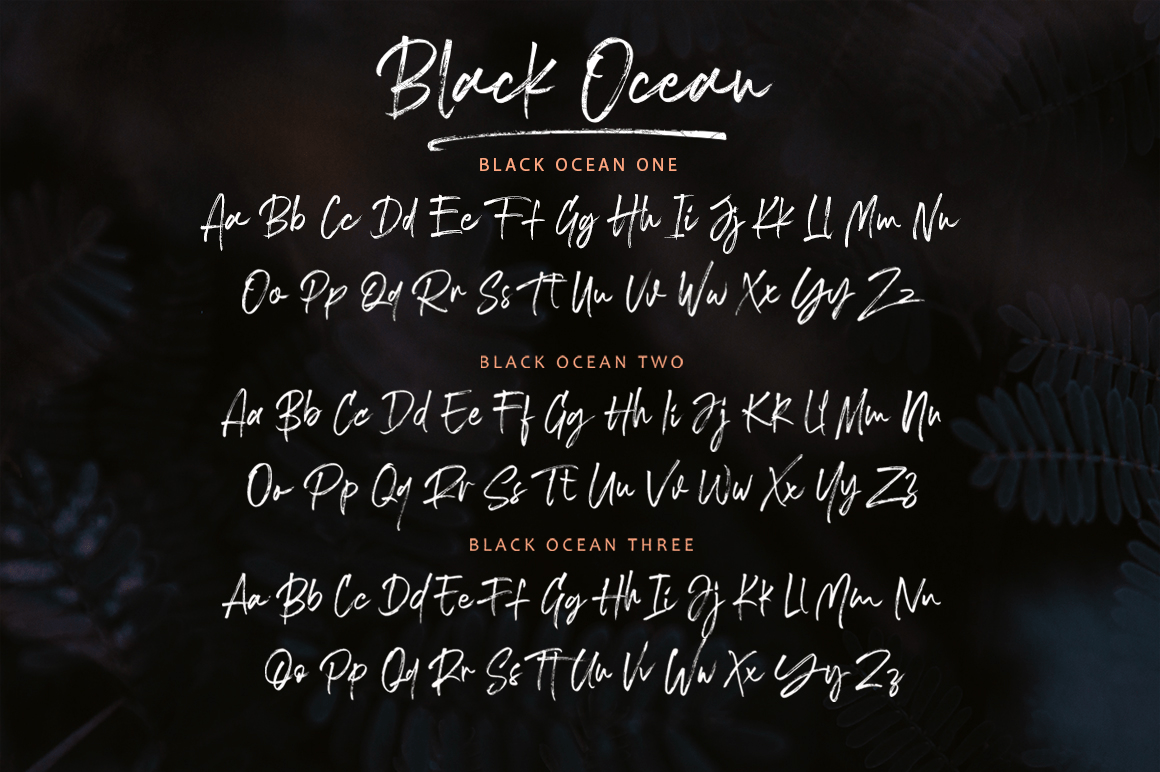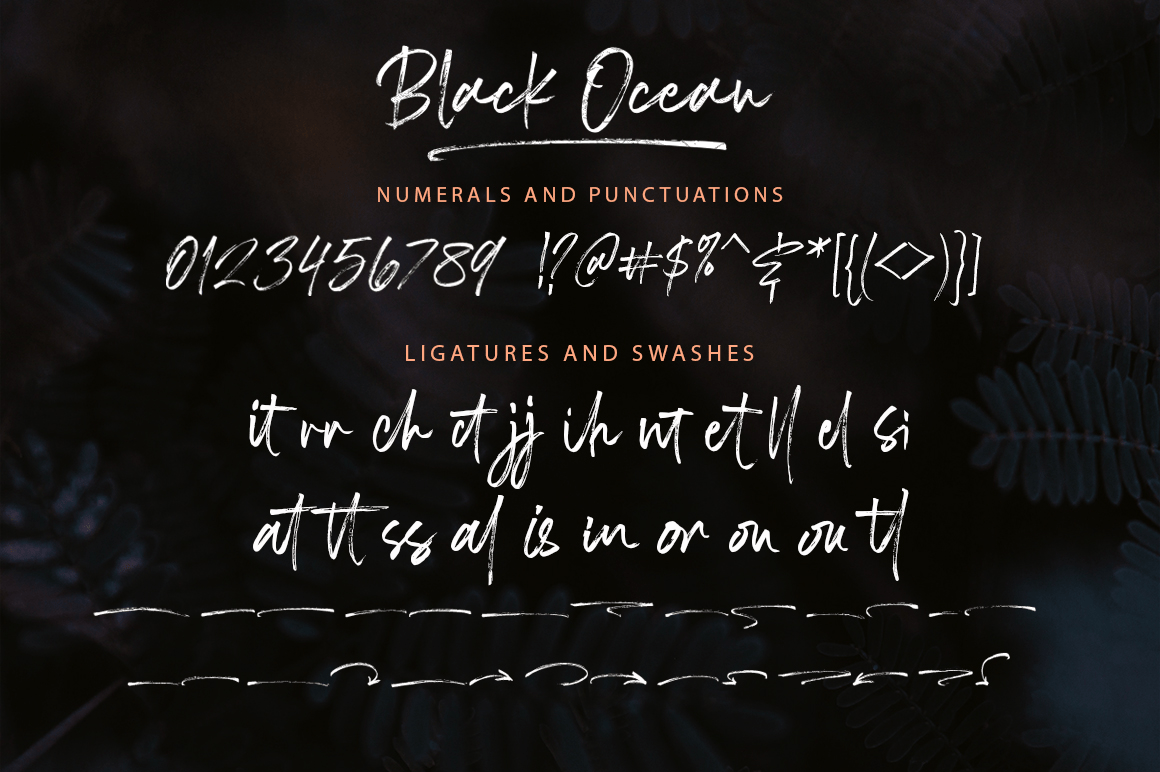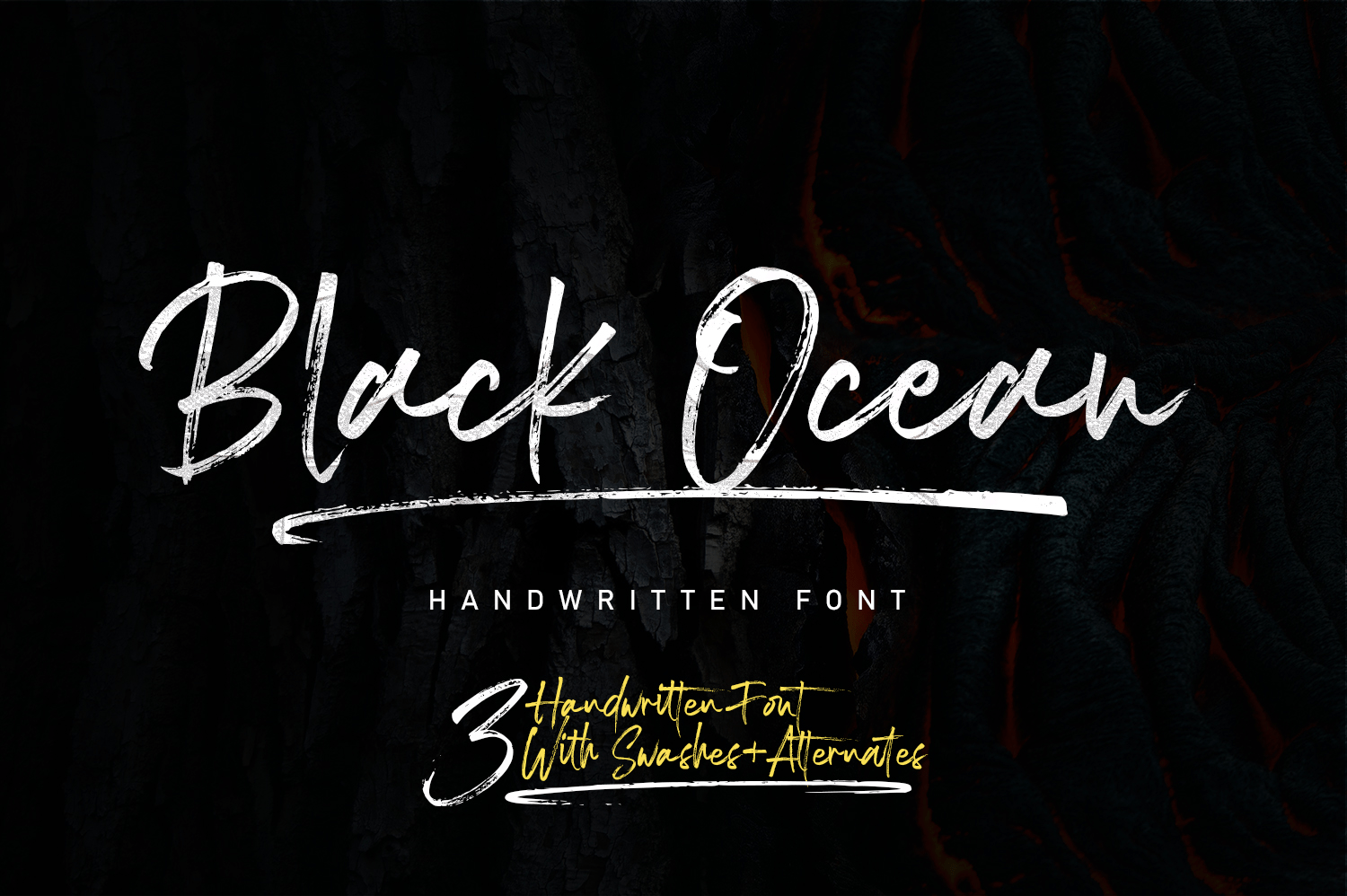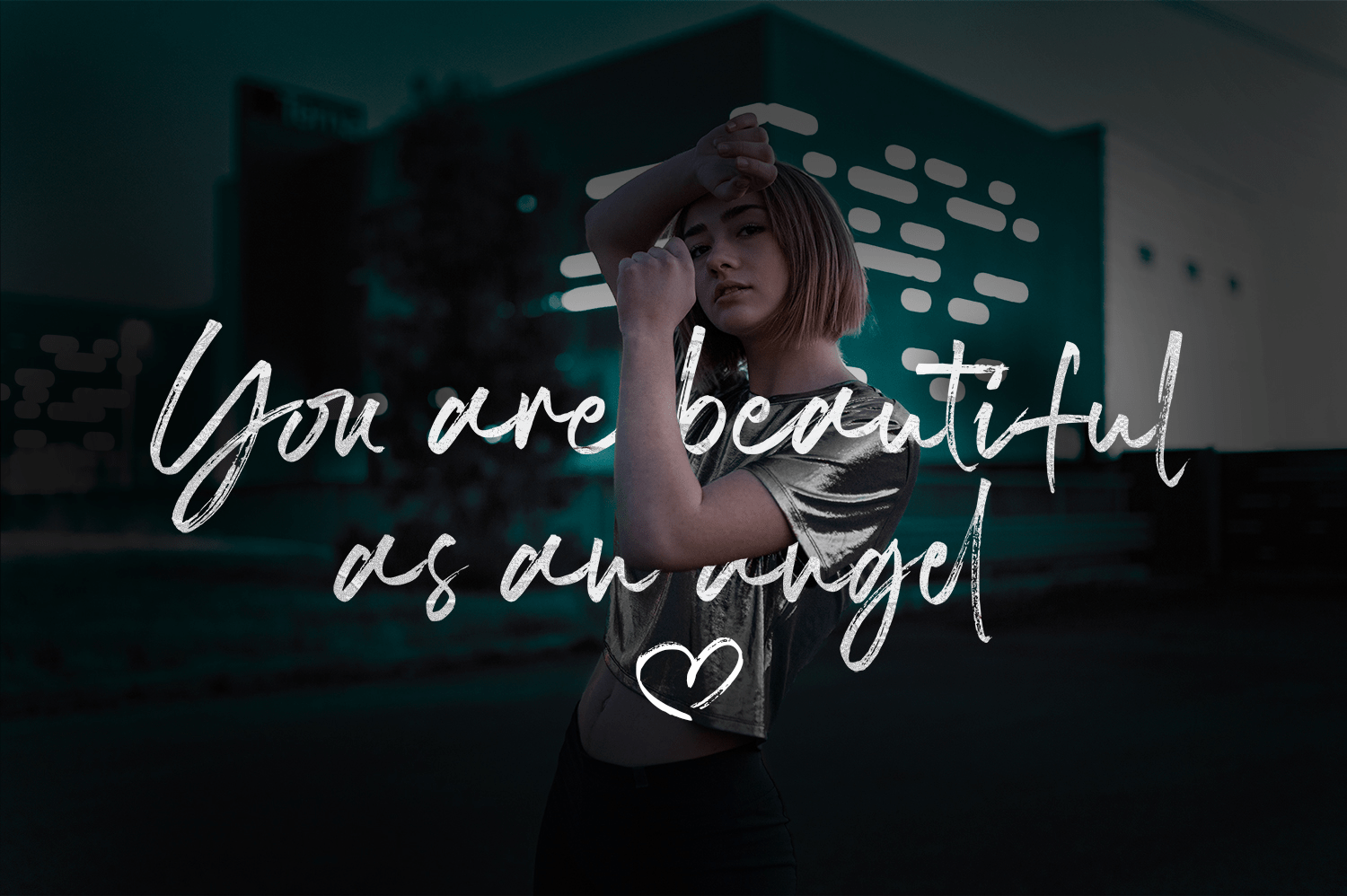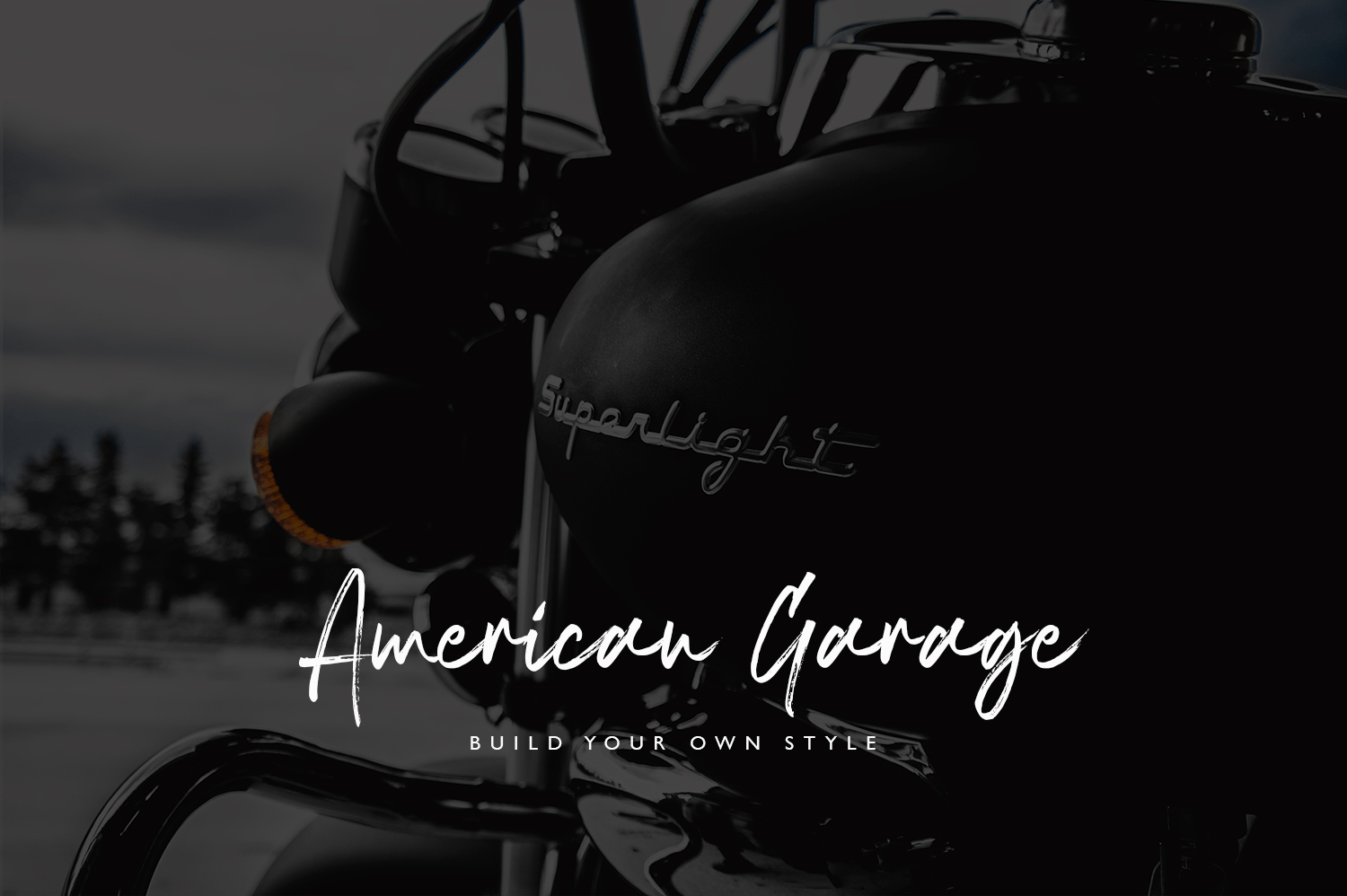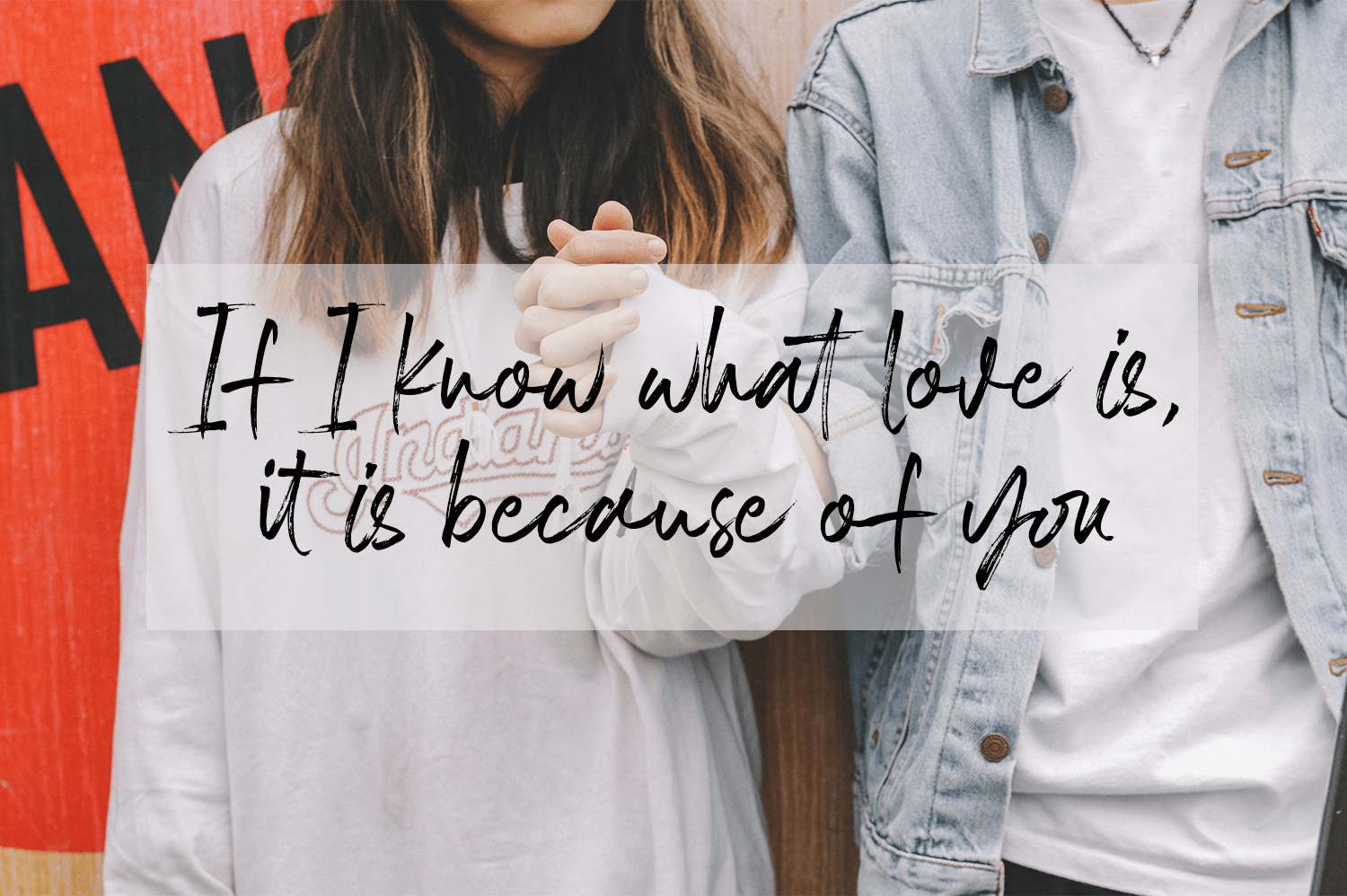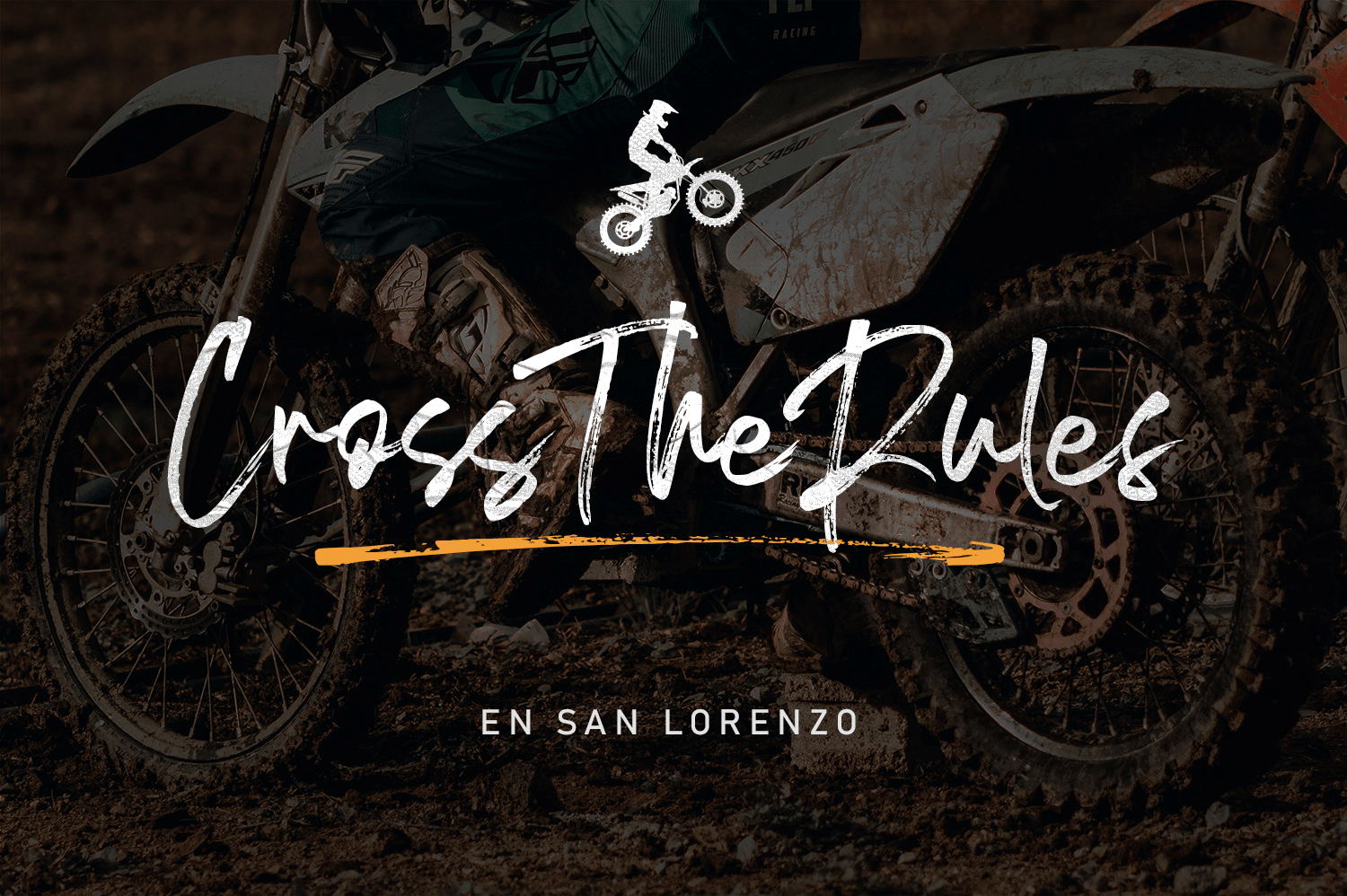
Black Ocean
About Black Ocean
Introducing Black Ocean!! Handwritten font with quick dry strokes and a signature style. perfect for branding projects, home ware designs, product packaging or simply as a stylish text overlay to any background image or posters. Alternates ! Black Ocean has…